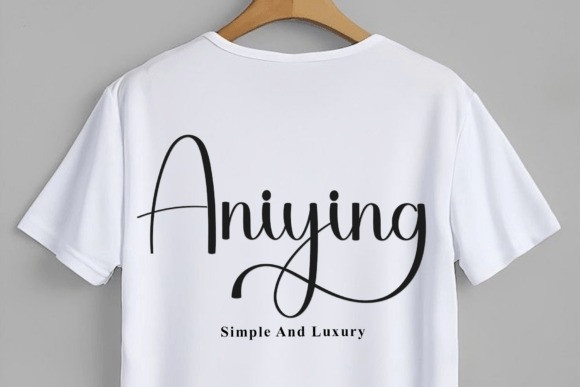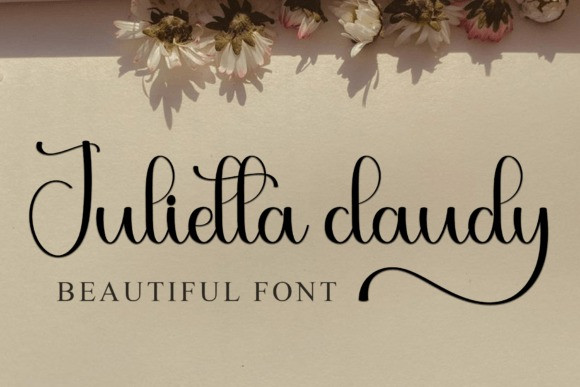
Diving Handwriting Font
Diving Handwriting Font is a lovely script font with smooth, flowing letters that look elegant and stylish. It’s perfect for invitations, logos, or any design that needs a touch of beauty and charm.